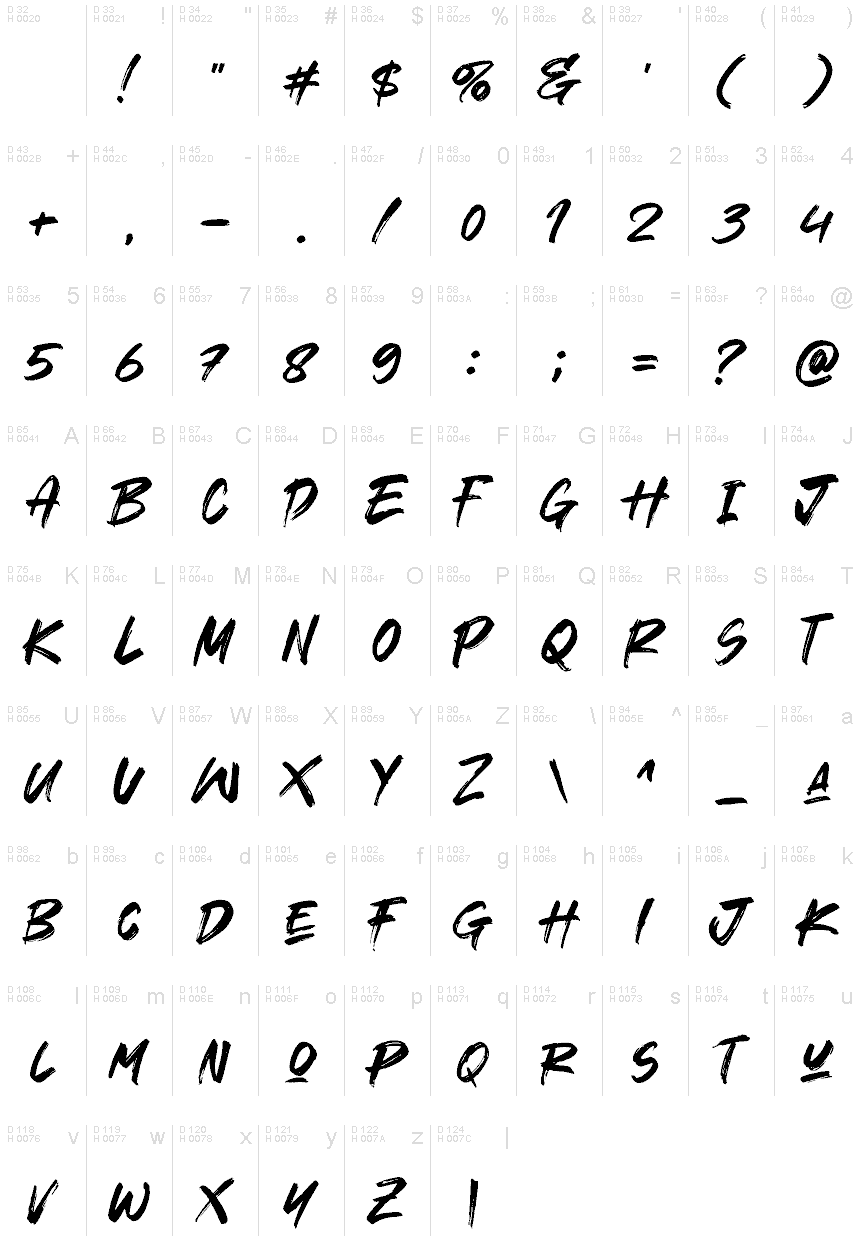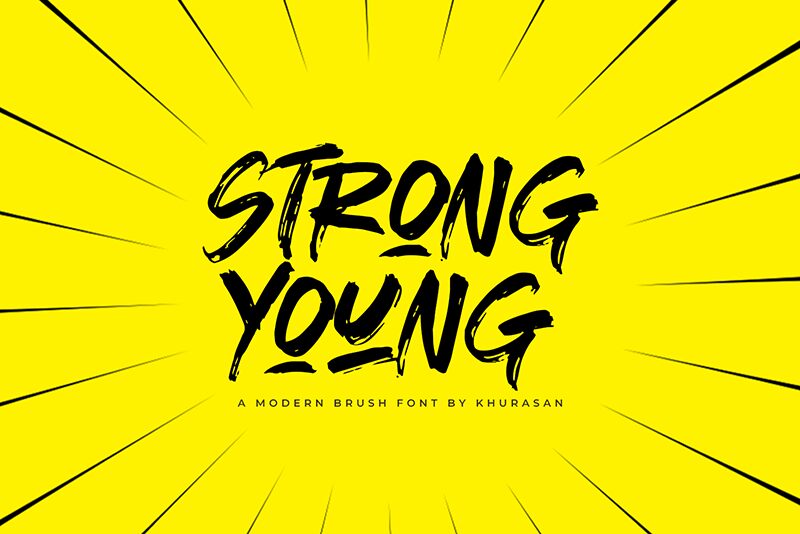
Strong Young
Strong Young font by Khurasan is a free brush font that brings powerful uppercase letters drawn in brushstrokes. The energetic and highly expressive letters add to the modern aesthetic while transforming your projects into creative masterpiesces. Their realistic vibe and hand-painted appearance further make this resource special.
Carefully create brand names, typography art quotes, product packaging design, clothing print designs and even event card invitations. Social media image posts are another excellent idea for Strong Young’s usage, especially Instagram and Facebook stories sharing special announcements. Visit Japan or Japanese culture are some of the most suitable themes for the inspirational implementation of this font.